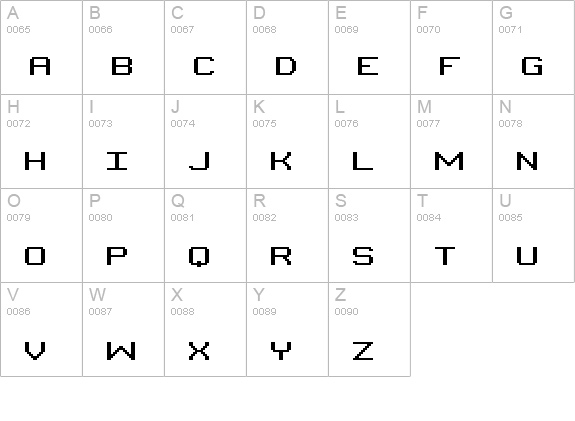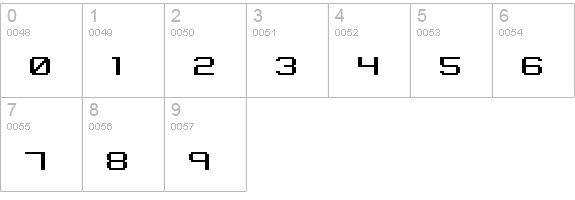
The Binary CHR BRK font is a sleek and modern typeface that combines elements of binary code with a futuristic design. With its sharp lines and geometric shapes, this font is perfect for creating a tech-inspired look in your designs. The unique characters in this font have been meticulously crafted to give a digital feel, making it ideal for technology-related projects. What's even better is that the Binary CHR BRK font is available for free download at FontsMarket.com. So whether you're working on a website, logo, or any other design project, this font will add a touch of innovation and style. Download it today and take your designs to the next level with the Binary CHR BRK font!